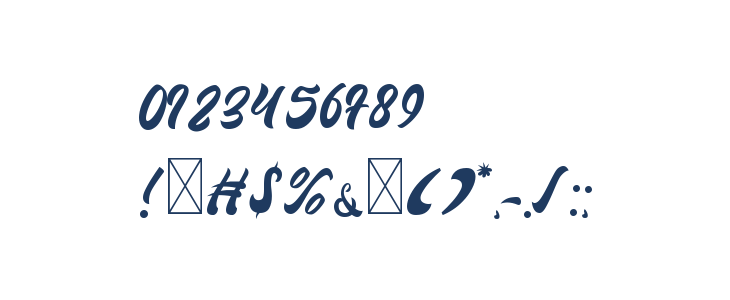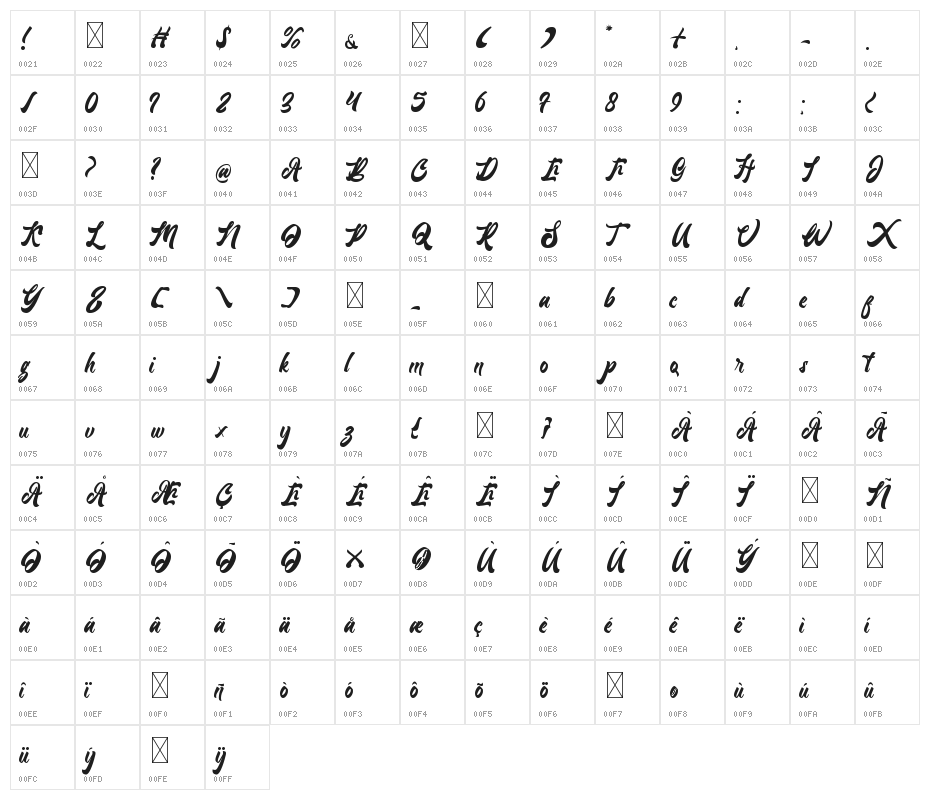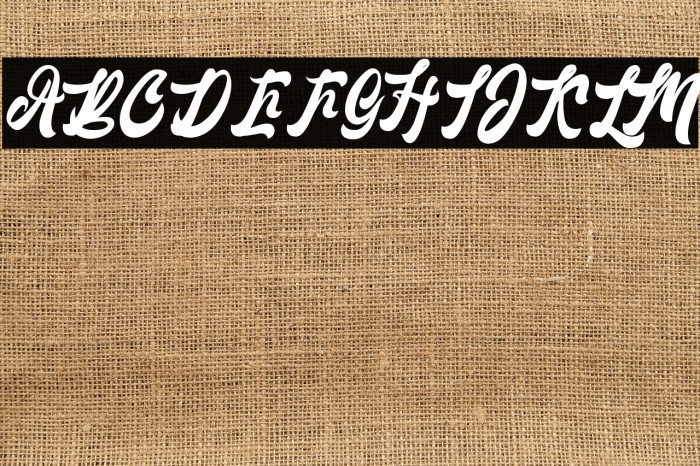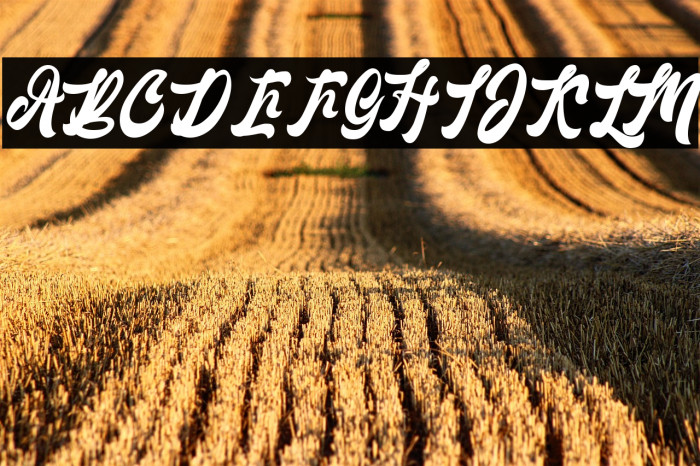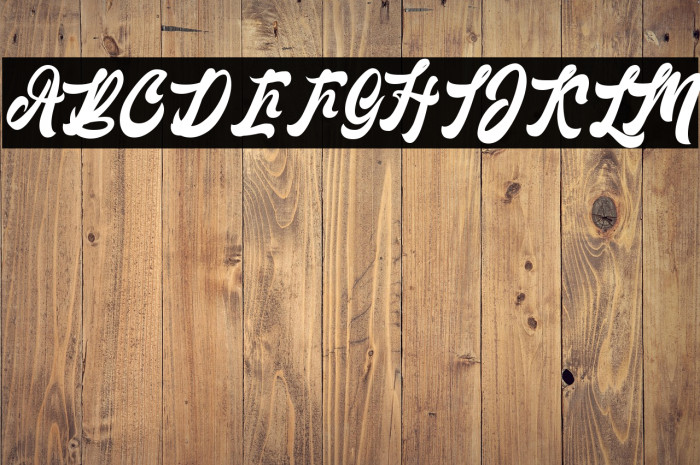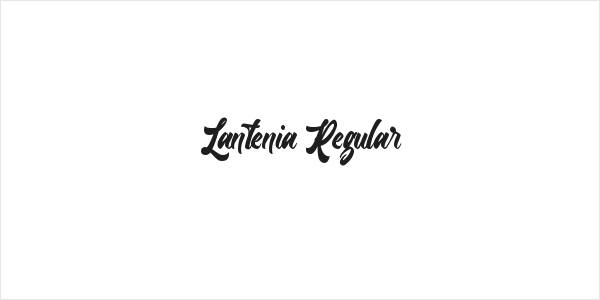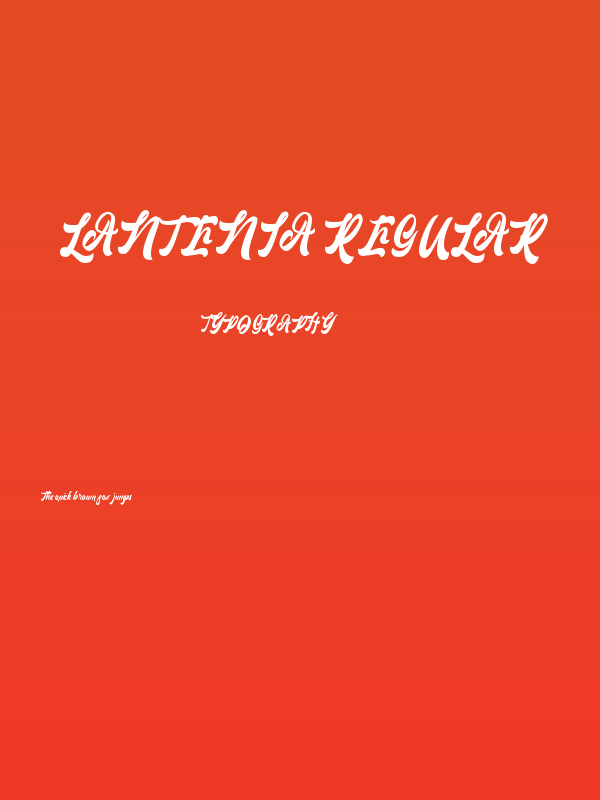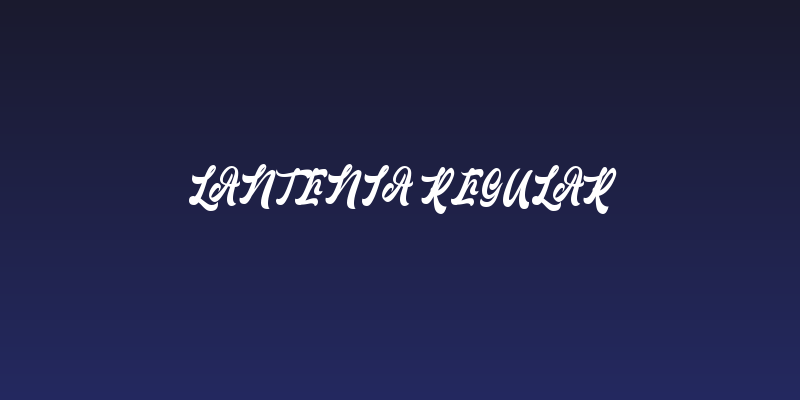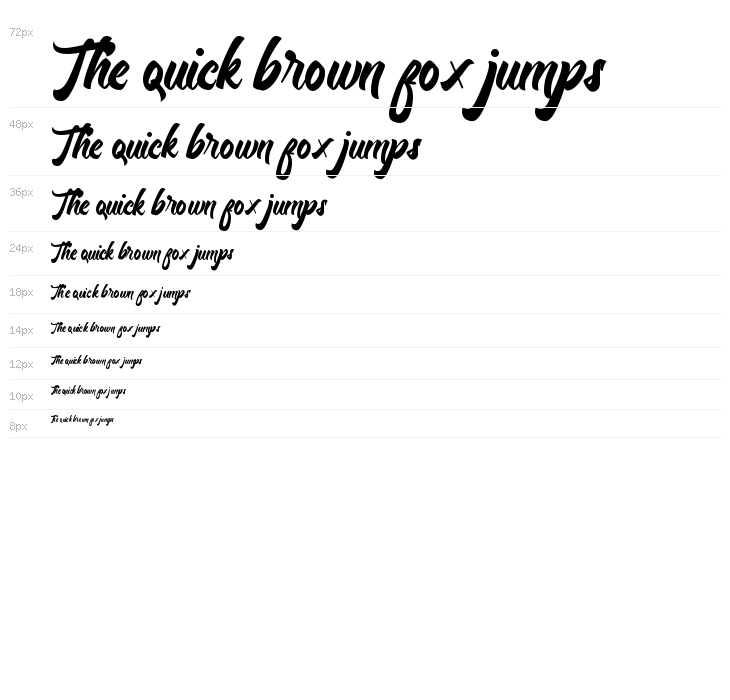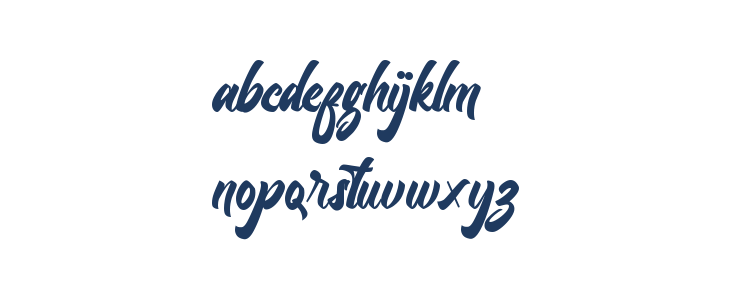
Lantenia Regular Font
Lantenia Regular Description
This font features a bold and flowing script style, characterized by its elegant and dynamic curves. The uppercase letters are ornate and expressive, with a distinct flair that adds a touch of sophistication. The lowercase letters maintain a consistent flow, enhancing readability while retaining the decorative nature. Numbers are bold and clear, matching the overall aesthetic. Special characters are creatively designed, complementing the script style. The font's overall appearance is both stylish and versatile, suitable for a variety of creative applications.
| Proposed Projects | Ideal for wedding invitations, branding, logo design, and decorative headlines. |